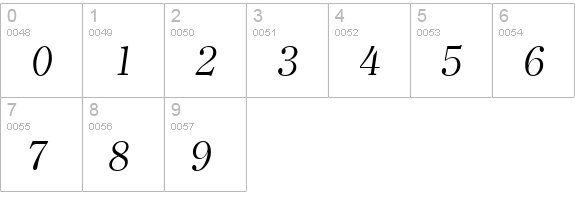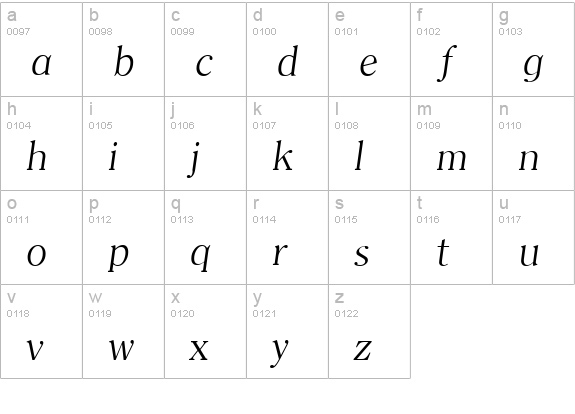
ClearfaceSerial-Light-Italic is a refined, elegant, italic variant in the ClearfaceSerial typeface family \xE2\x80\x94 well suited to elegant body text, refined sub-headings, and luxury branding.
ClearfaceSerial-Light-Italic is a sleek and elegant font that exudes sophistication and modernity. Its slender and italic design adds a touch of grace and flair to any project, making it perfect for use in branding, editorial design, and more. The gentle slant of the letters creates a sense of movement and fluidity, making this font ideal for conveying a sense of dynamism and style. The ClearfaceSerial-Light-Italic font is available for free download at FontsMarket.com, allowing designers and creatives to easily access this versatile typeface for their creative endeavors. Whether you're working on a logo, website design, or any other project that requires a touch of finesse, ClearfaceSerial-Light-Italic is sure to elevate your work with its refined and sophisticated appearance. Download this font today and add a touch of elegance to your designs.